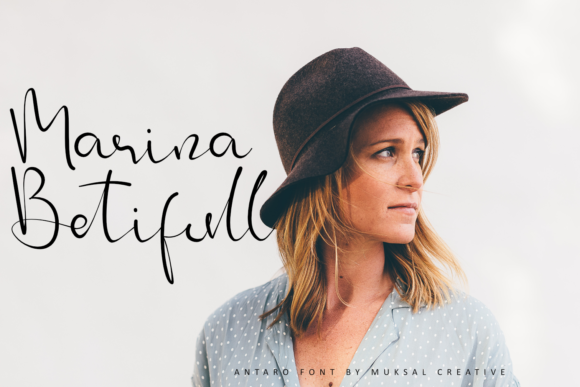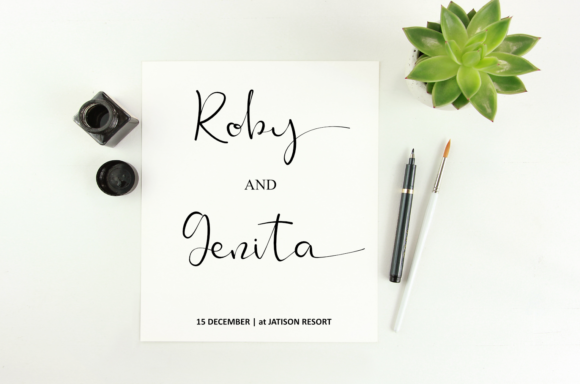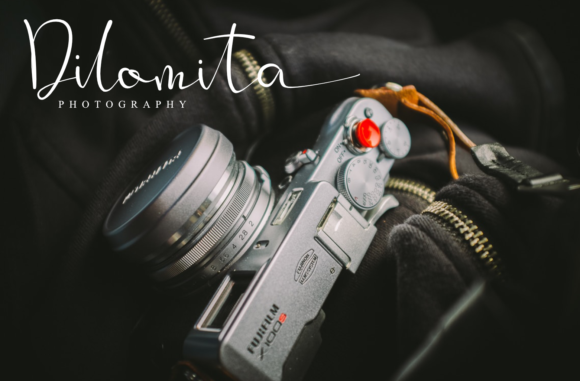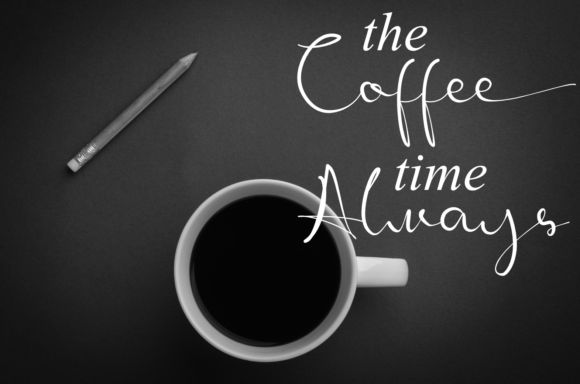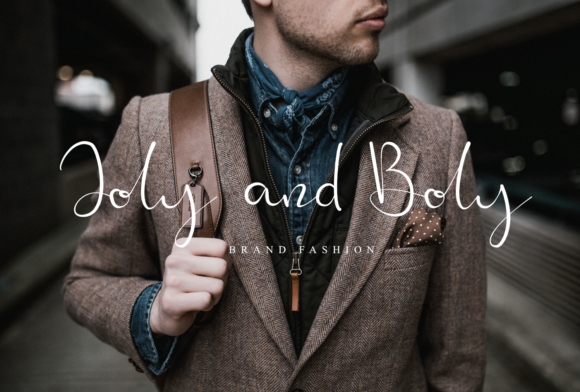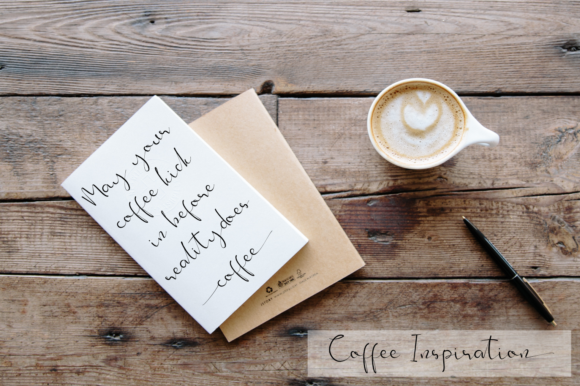
Introducing Antaro Font: Elevate Your Design with Elegance
Are you looking for a font that can add a touch of sophistication and refinement to your design projects? Look no further than Antaro Font. This modern and flowing handwritten font is designed to bring a sense of elegance and poise to any design, making it perfect for crafters, designers, and anyone looking to create stunning visual content.
What Makes Antaro Font Special?
Antaro Font is a unique and stylish font that stands out from the crowd. Its modern and flowing design makes it perfect for a wide range of design projects, from wedding invitations and branding materials to social media graphics and blog posts. The font’s elegant and refined appearance is sure to capture the attention of your audience and leave a lasting impression.
Key Features of Antaro Font
- Modern and Flowing Design: Antaro Font features a modern and flowing design that is both elegant and refined.
- Handwritten Style: The font’s handwritten style gives it a personal and unique touch that sets it apart from other fonts.
- Highly Versatile: Antaro Font is highly versatile and can be used for a wide range of design projects, from print materials to digital content.
- Easily Readable: The font is designed to be easily readable, making it perfect for body text and headings.
How to Use Antaro Font in Your Design Projects
Using Antaro Font in your design projects is easy. Here are a few tips to get you started:
- Pair it with Other Fonts: Antaro Font pairs well with other fonts, making it easy to create stunning typography combinations.
- Use it for Headings and Titles: The font’s elegant and refined appearance makes it perfect for headings and titles.
- Add it to Your Brand Identity: Antaro Font can be used to create a consistent brand identity across all your design materials.
Why Designers and Crafters Love Antaro Font
Designers and crafters love Antaro Font for its unique and stylish design. Here are a few reasons why:
- Unique and Stylish: Antaro Font is a unique and stylish font that adds a touch of elegance to any design project.
- Easily Customizable: The font is easily customizable, making it easy to adjust to fit your design needs.
- High-Quality Design: Antaro Font features a high-quality design that is sure to impress your audience.
In conclusion, Antaro Font is a modern and flowing handwritten font that is perfect for designers and crafters looking to add a touch of elegance to their design projects. With its unique and stylish design, highly versatile nature, and easily readable style, Antaro Font is sure to become a staple in your font collection.